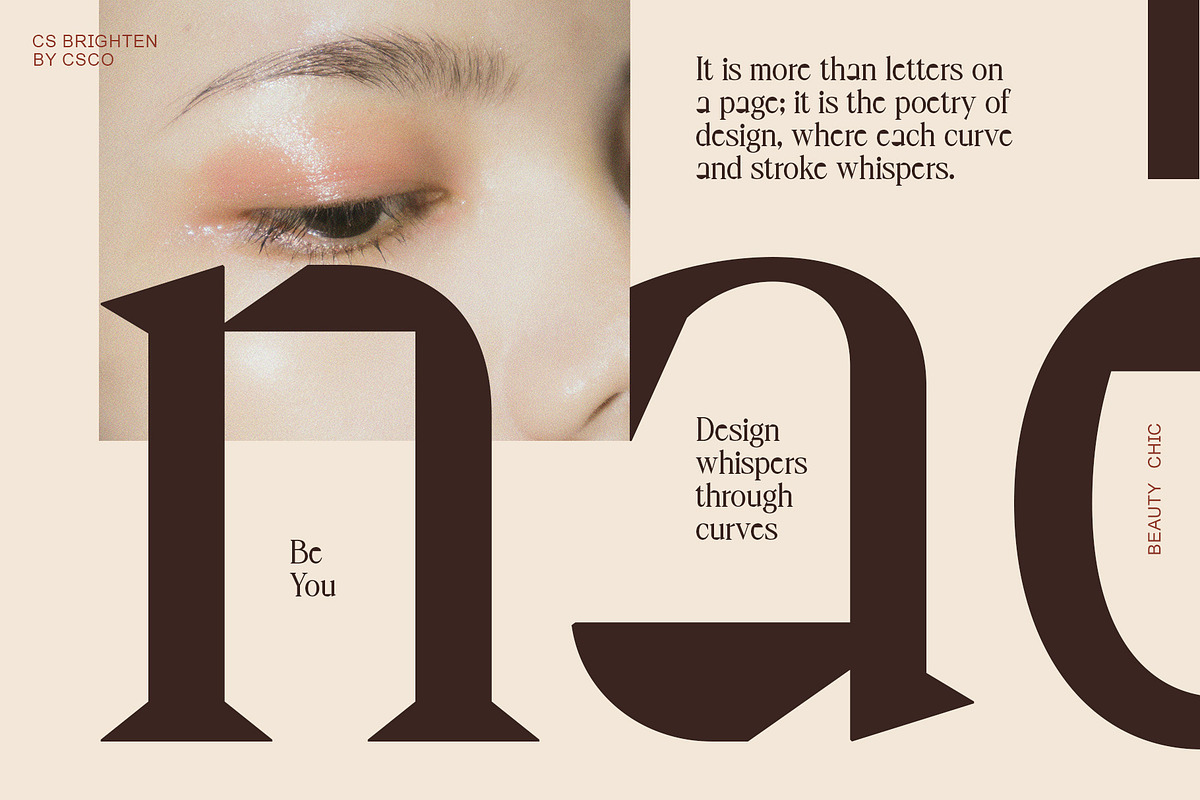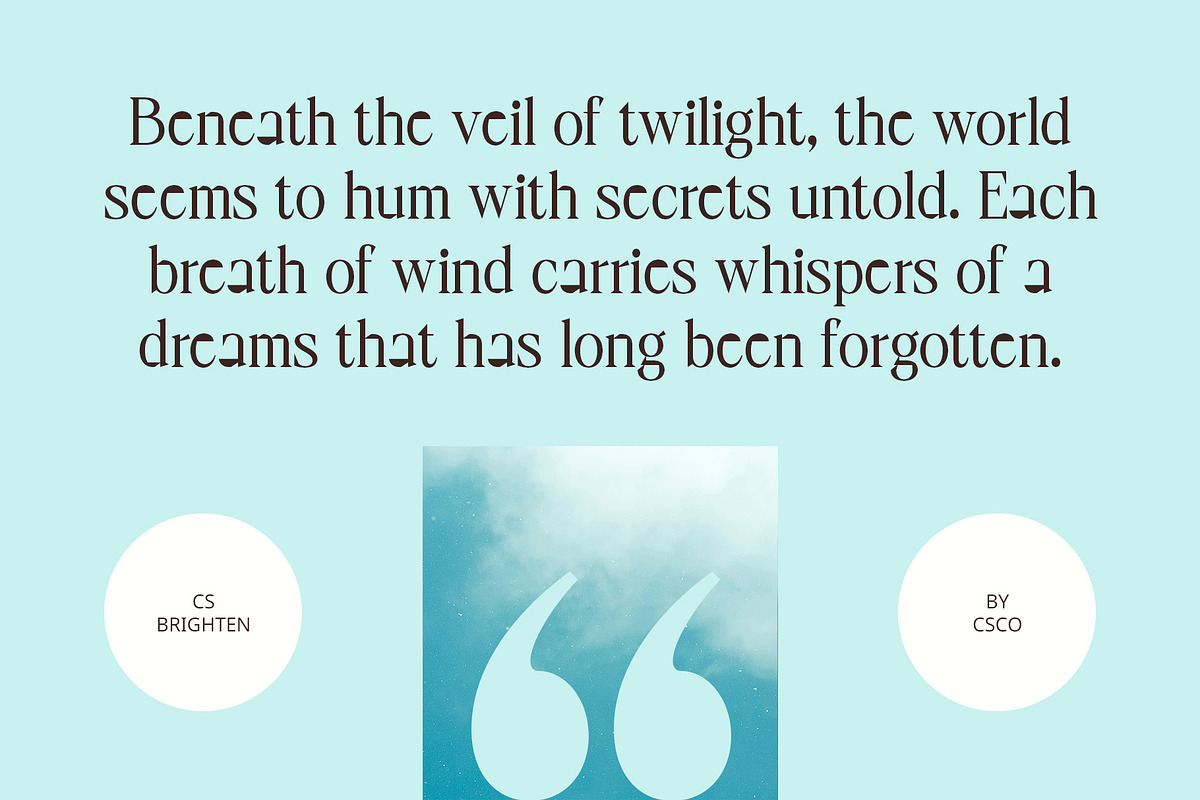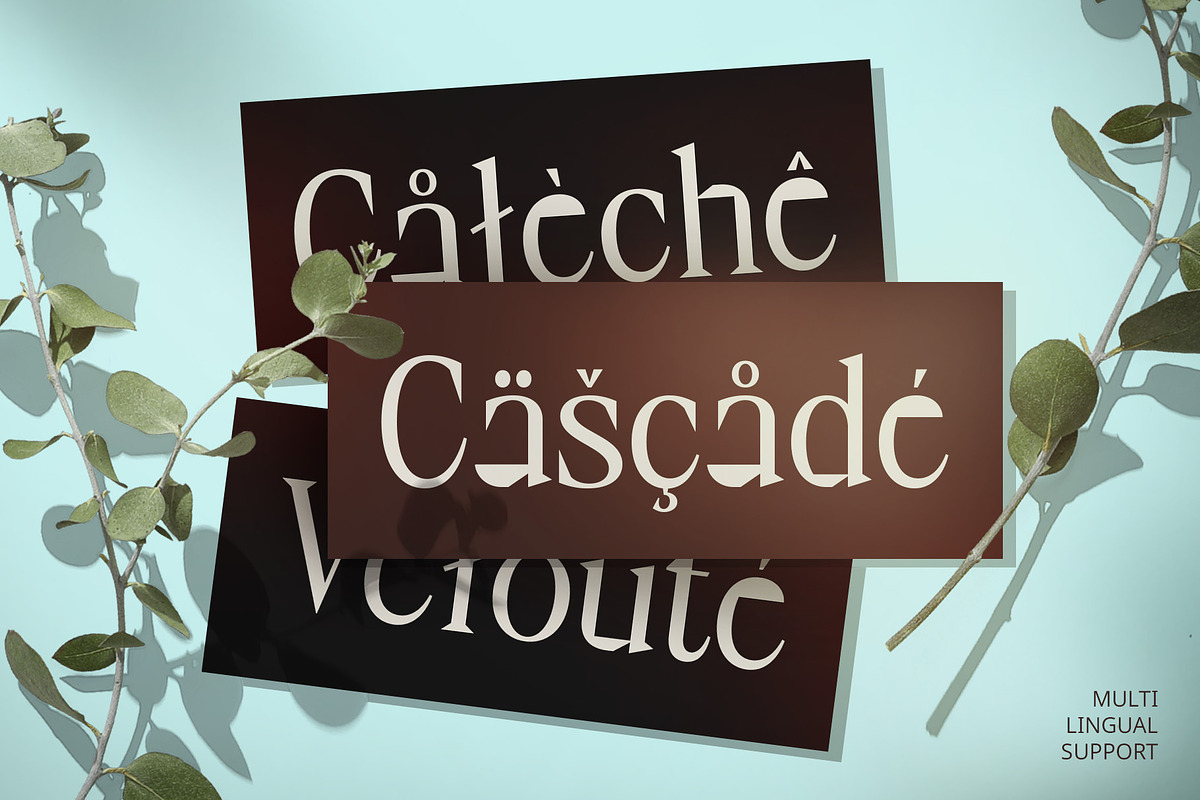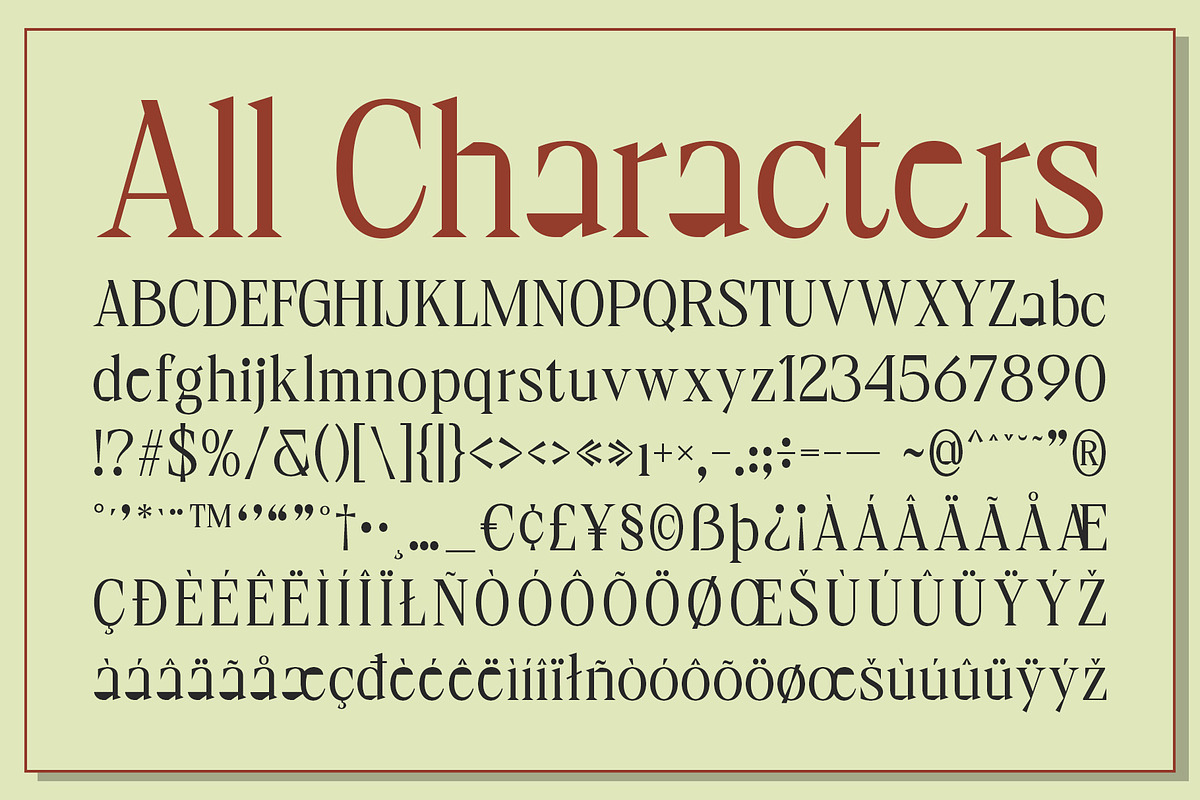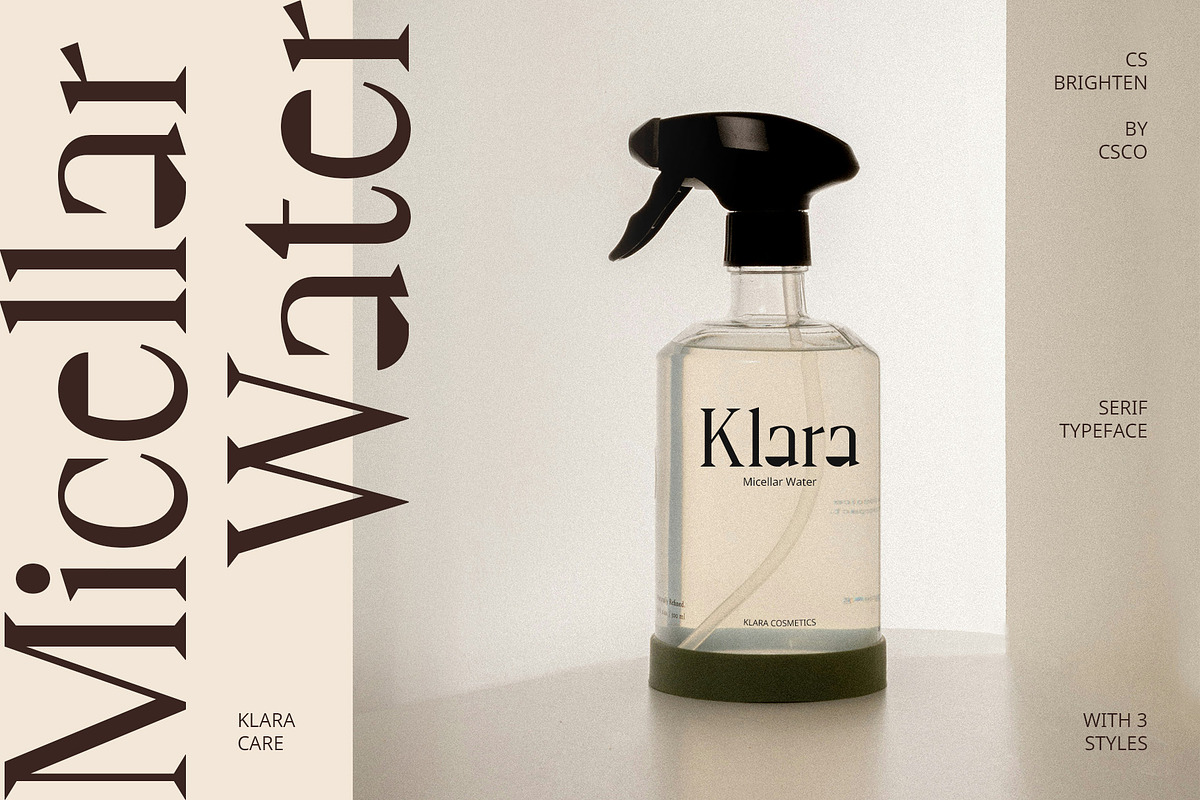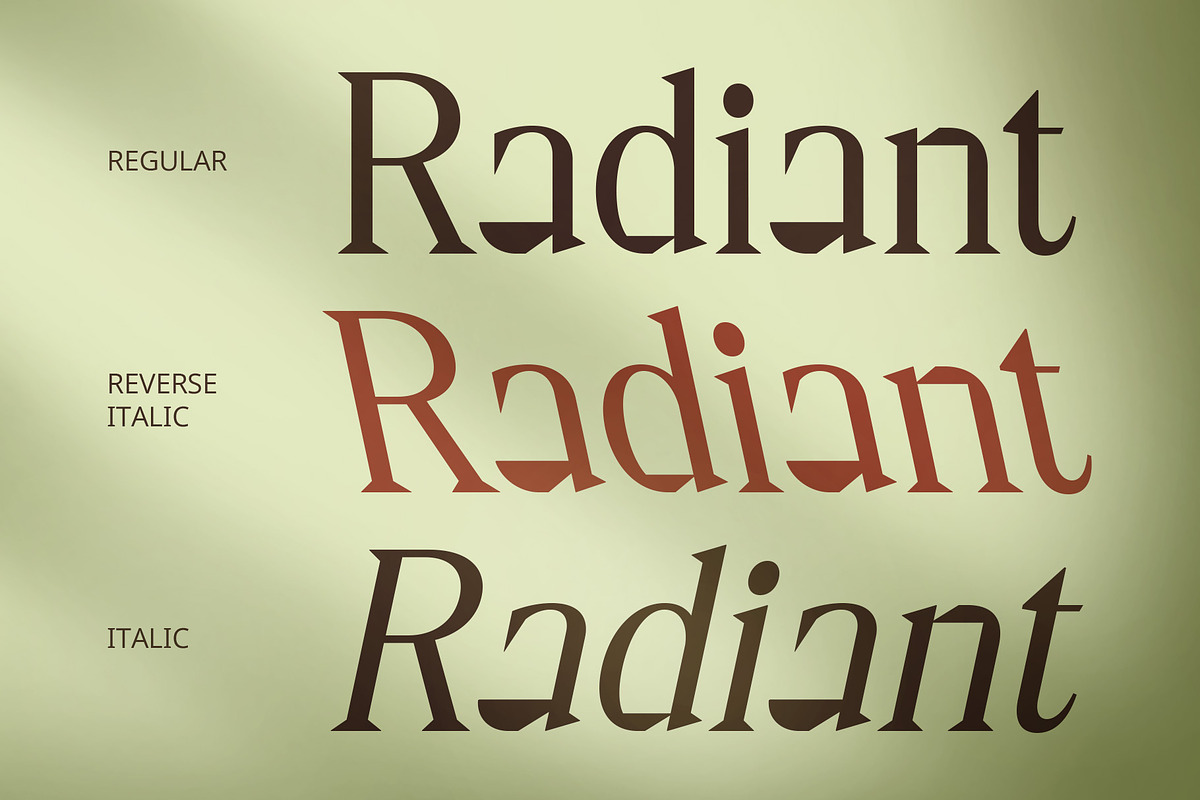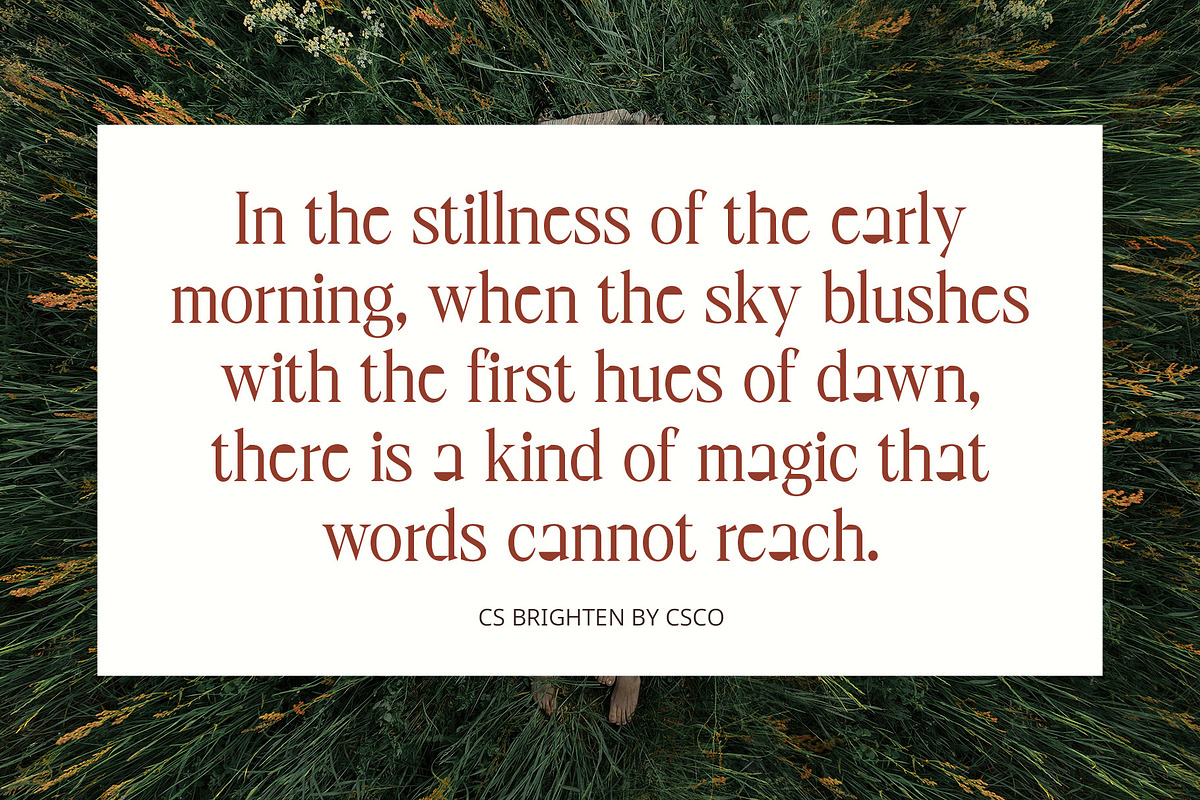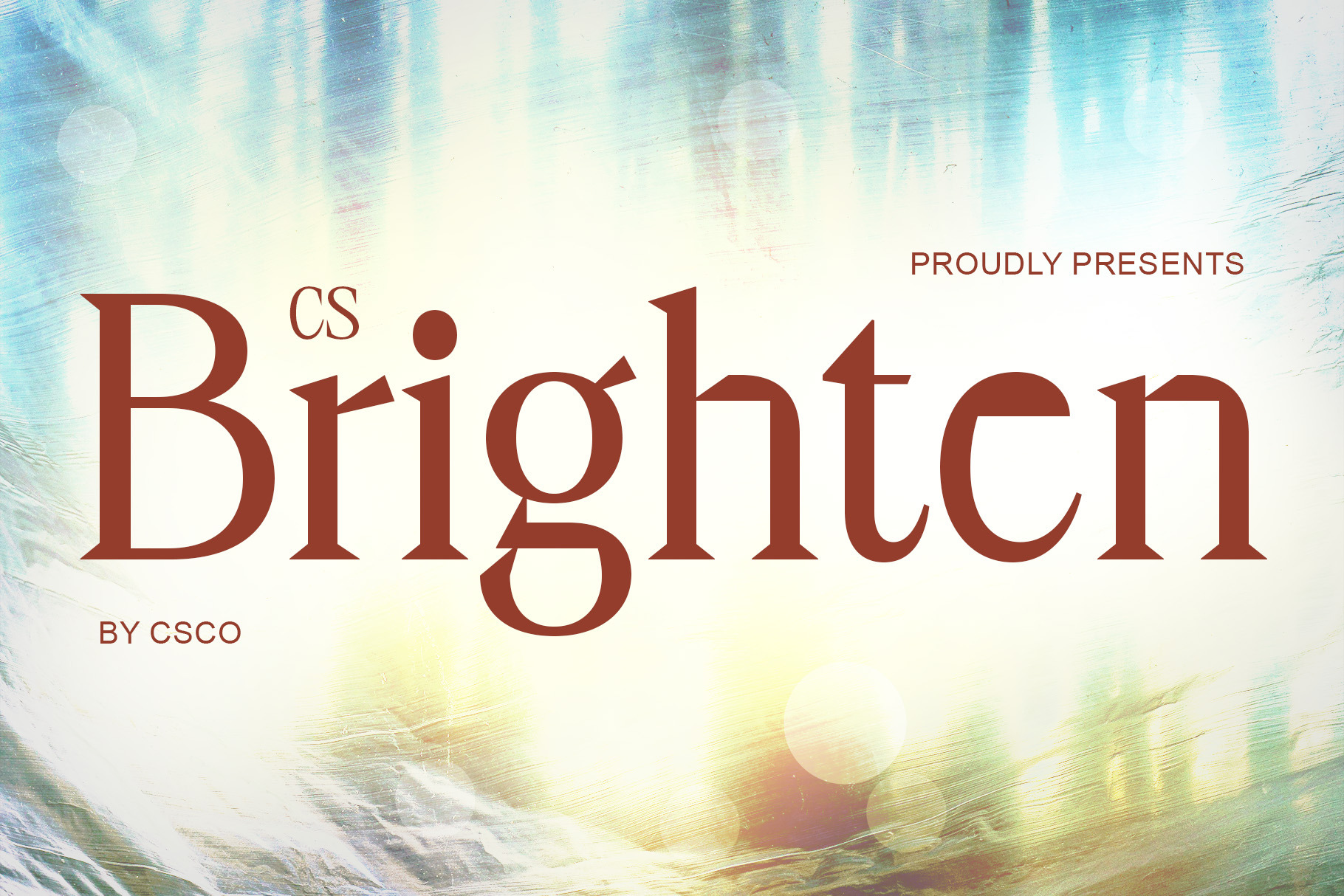
CS Brighten – Classic Font
CS Brighten – Classic Modern Serif Font
Elegant Blend of Tradition and Modernity CS Brighten is a modern serif font that effortlessly merges traditional design elements with contemporary influences, creating a font that feels both timeless and fresh. The clean, sharp serifs paired with its well-proportioned, sleek letterforms provide a sophisticated, high-end look, while the open spacing between characters enhances readability. This combination ensures that the font not only stands out but is also legible across various design applications, from digital to print.
Timeless Yet Modern Aesthetic Rooted in the traditions of classic typography, CS Brighten maintains a vintage charm while embracing a modern edge through minimalist details and smoother lines. The font’s sleek structure exudes a balance of strength and elegance, making it perfect for designs that aim to evoke both history and innovation. Its modern approach to serif design allows it to complement a variety of visual styles, offering versatility and timeless appeal.
Perfect for Sophisticated Branding and Editorial Work Ideal for high-end branding, luxury editorial designs, and marketing materials, CS Brighten delivers an aesthetic that blends elegance with contemporary flair. Whether used for corporate communications, fashion branding, or premium product packaging, this font lends an air of authority and prestige.
- CS Brighten Regular
- CS Brighten Italic
- CS Brighten Reverse Italic